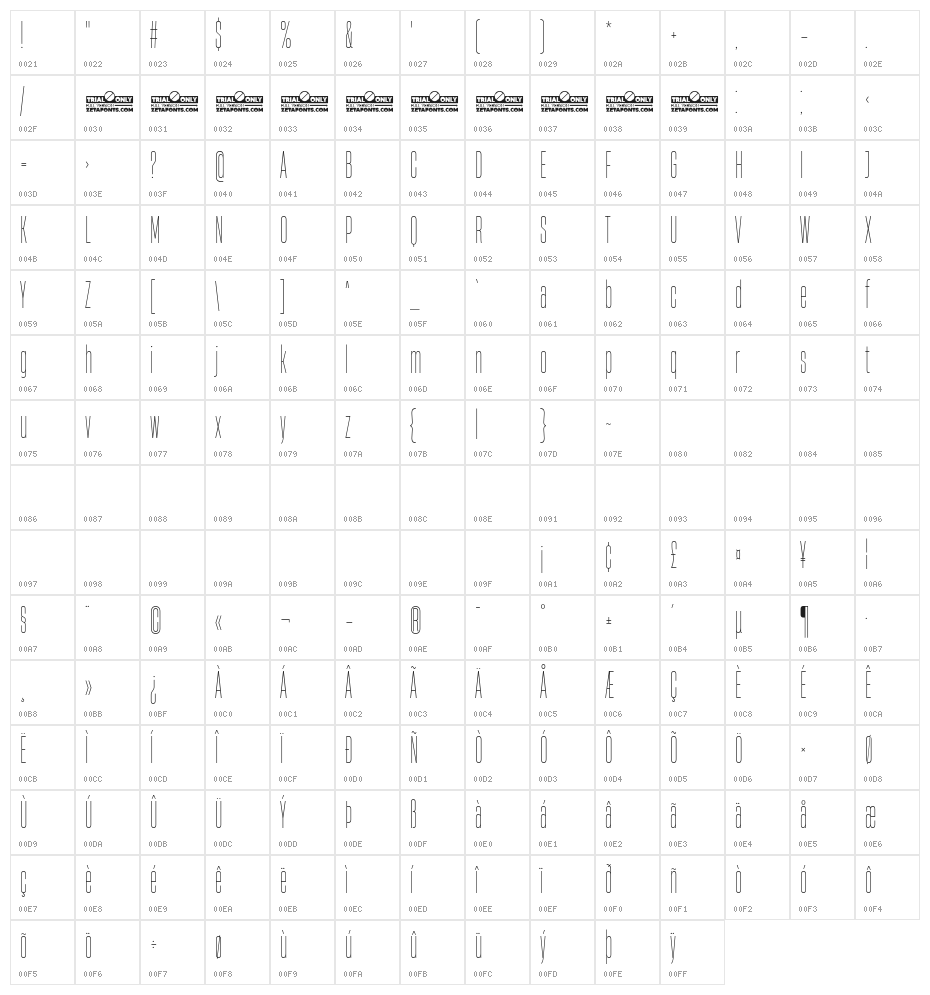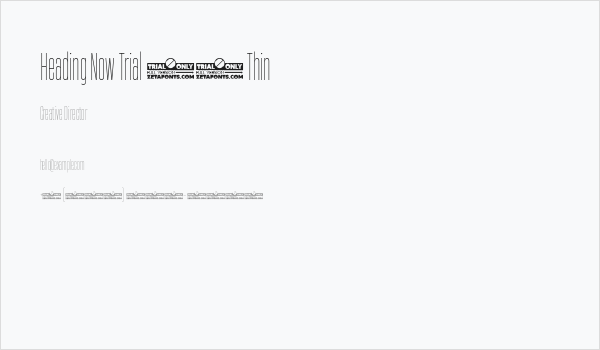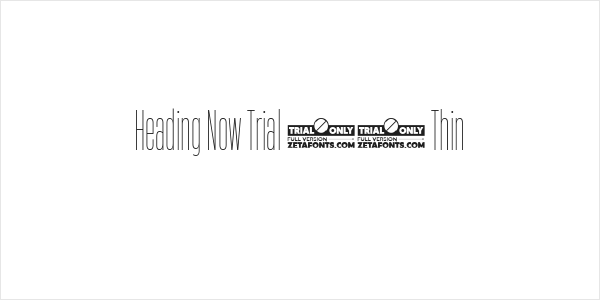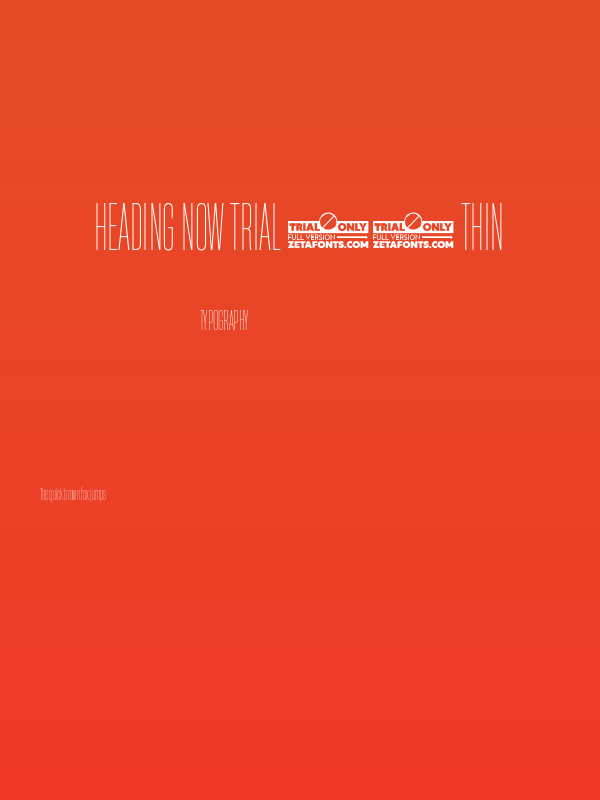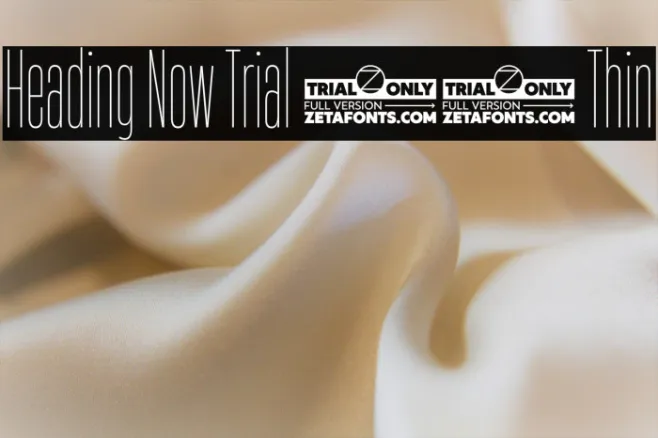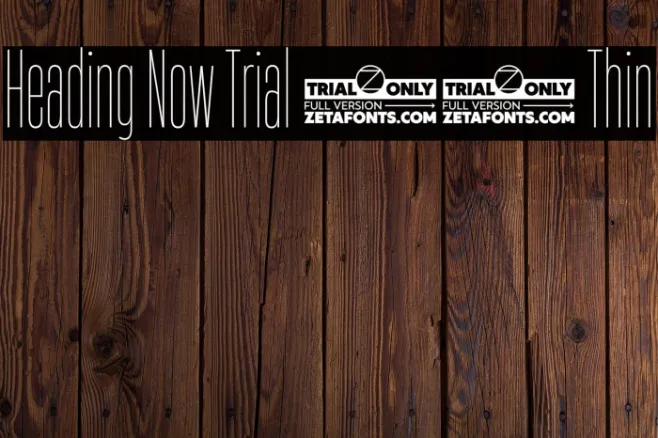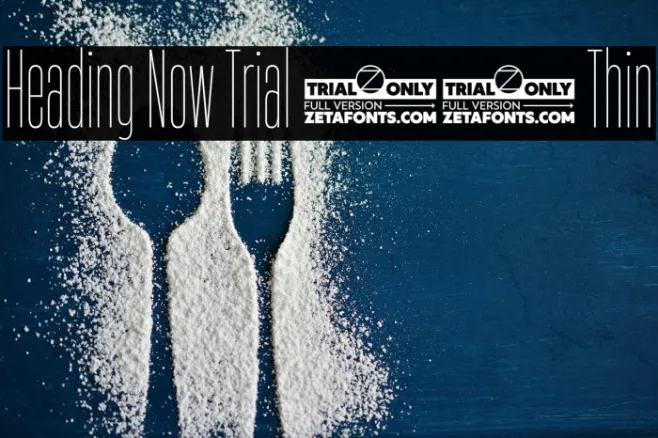
Heading Now Trial 11 Thin Font
Heading Now Trial 11 Thin Description
This font features a sleek and modern design with tall, narrow characters that convey a sense of elegance and sophistication. The thin strokes and high contrast between the vertical and horizontal lines give it a refined appearance, making it suitable for contemporary design projects. The uppercase and lowercase letters maintain a consistent height, contributing to a uniform and clean look. The numerals and special characters are designed to match the overall aesthetic, ensuring a cohesive visual experience.
| Proposed Projects | Ideal for fashion magazines, luxury branding, minimalist posters, and modern web design. |